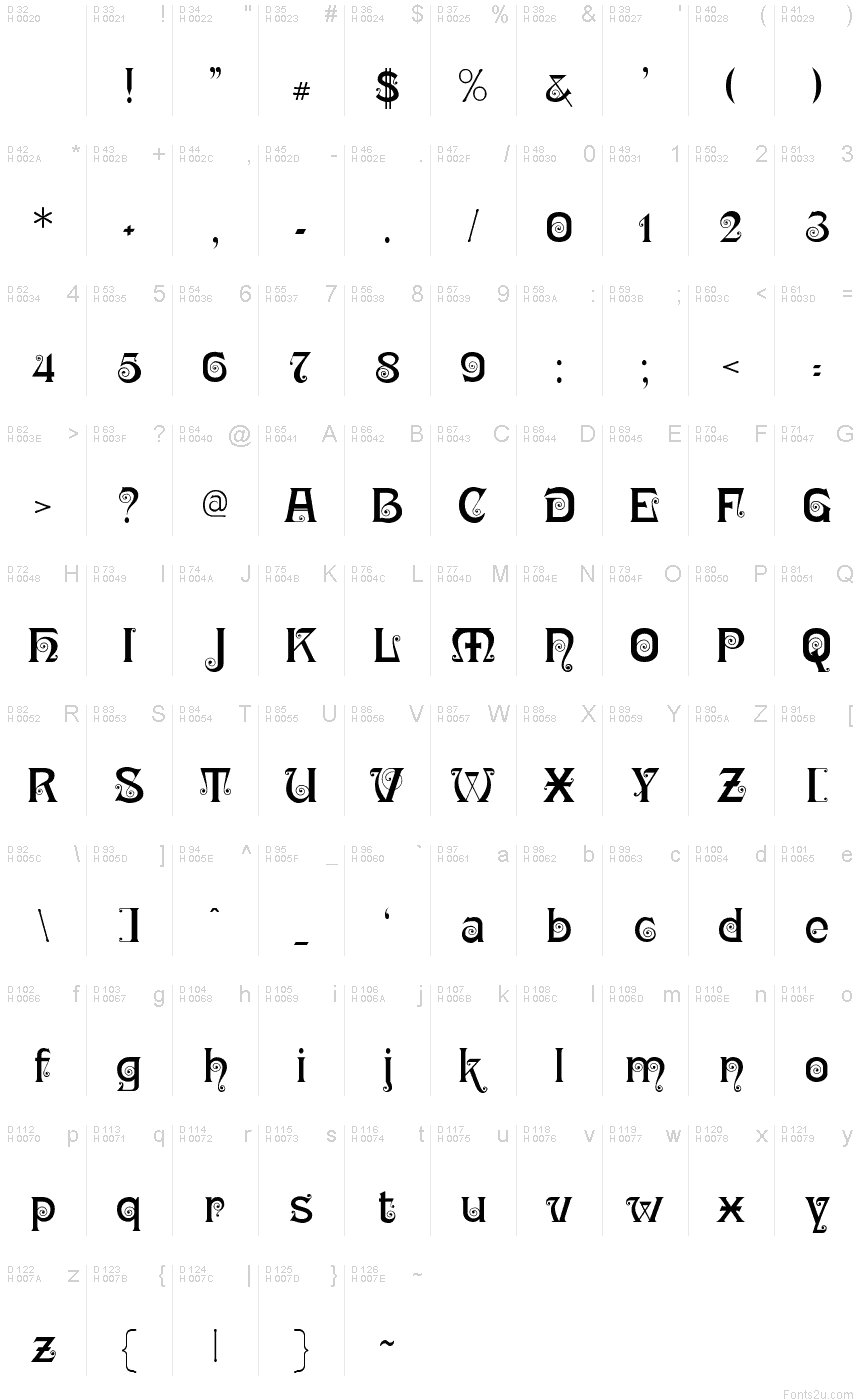
Ringlet Black is a free ornamental display font built around dramatic thick-and-thin strokes and tightly curled spiral details. Its sweeping tails make the lettering feel theatrical.
Fairy-tale and storybook themes are a natural match for its vine-like curves and old-fashioned drama, especially on book covers and event posters. The same fanciful shapes suit confectionery packaging, children's entertainment, and fantasy-themed merchandise, where the letters can take on an almost illustrated role. Those repeating coils can echo curling plants, candy swirls, or magical smoke in surrounding artwork, linking the type directly to an illustrated scene.